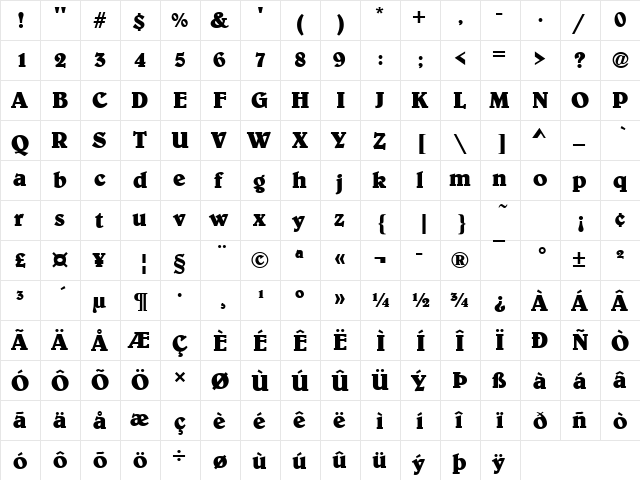
Elegance Bold Font Preview
Elegance Bold
Design Context for Elegance Typeface
Elegance offers clean, dependable letterforms without strong stylistic allegiance, making it a practical choice for designers who need flexibility. The heavy weight commands attention and anchors typographic hierarchies.